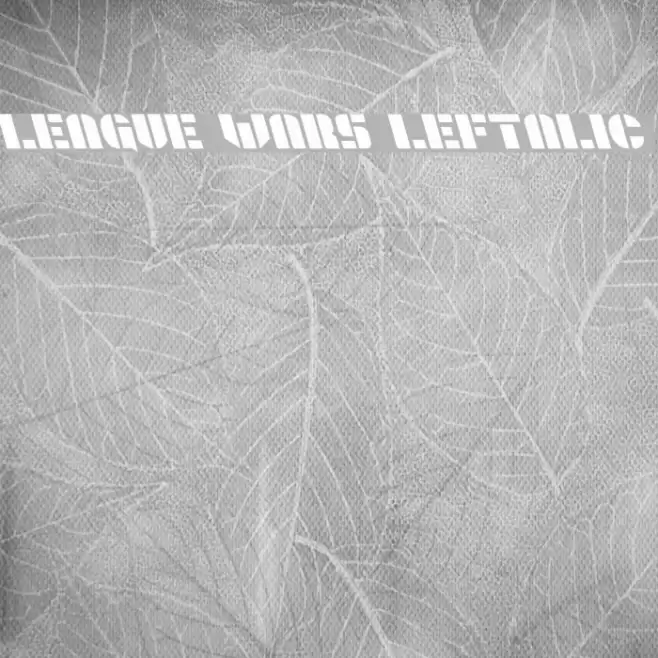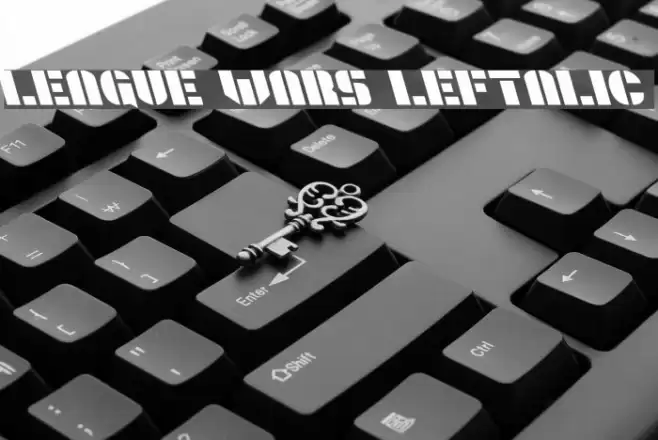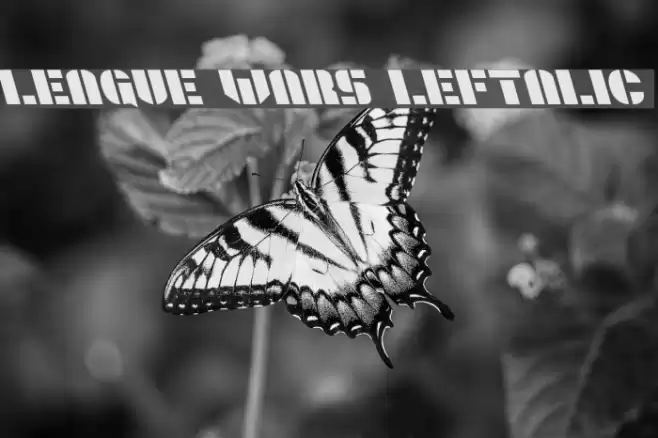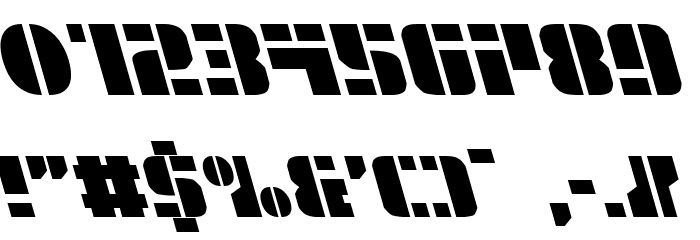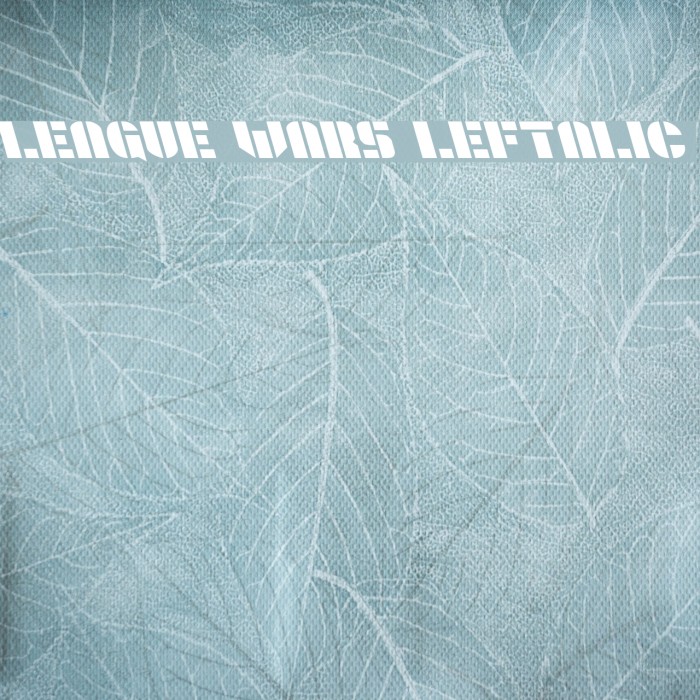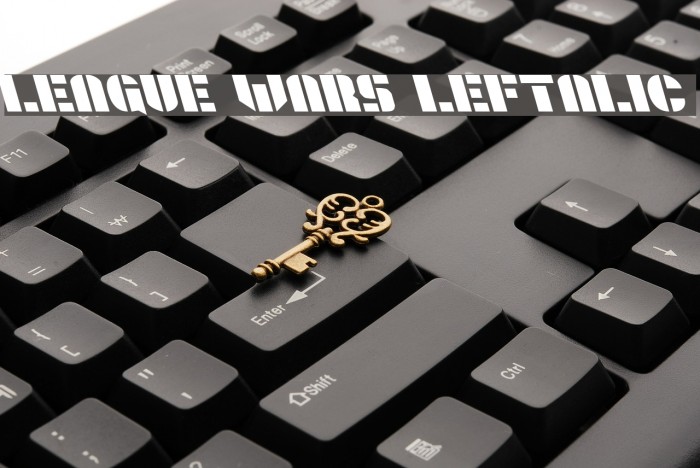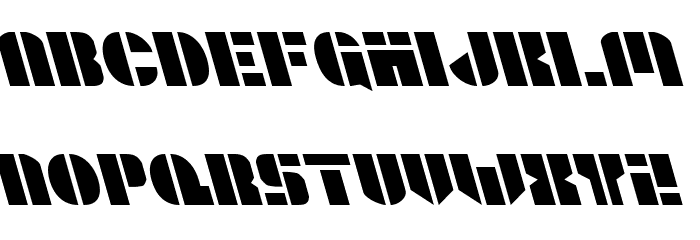
League Wars Leftalic Font
League Wars Leftalic Description
This bold, decorative font features a unique stencil-like design with sharp, angular cuts and a strong, impactful presence. The characters are heavily stylized, with a futuristic and industrial feel, making them stand out with their distinctive geometric shapes. The uppercase and lowercase letters maintain a consistent style, while the numbers and special characters complement the overall aesthetic. The font's design is ideal for projects that require a bold statement, such as posters, logos, and headlines, where attention-grabbing visuals are essential.
A bold, decorative font with a stencil-like, geometric design from Uncategorized fonts.
- Proposed Projects: Ideal for posters, logos, headlines, and any project needing a bold, futuristic look.
- Overall Style: Futuristic, Industrial